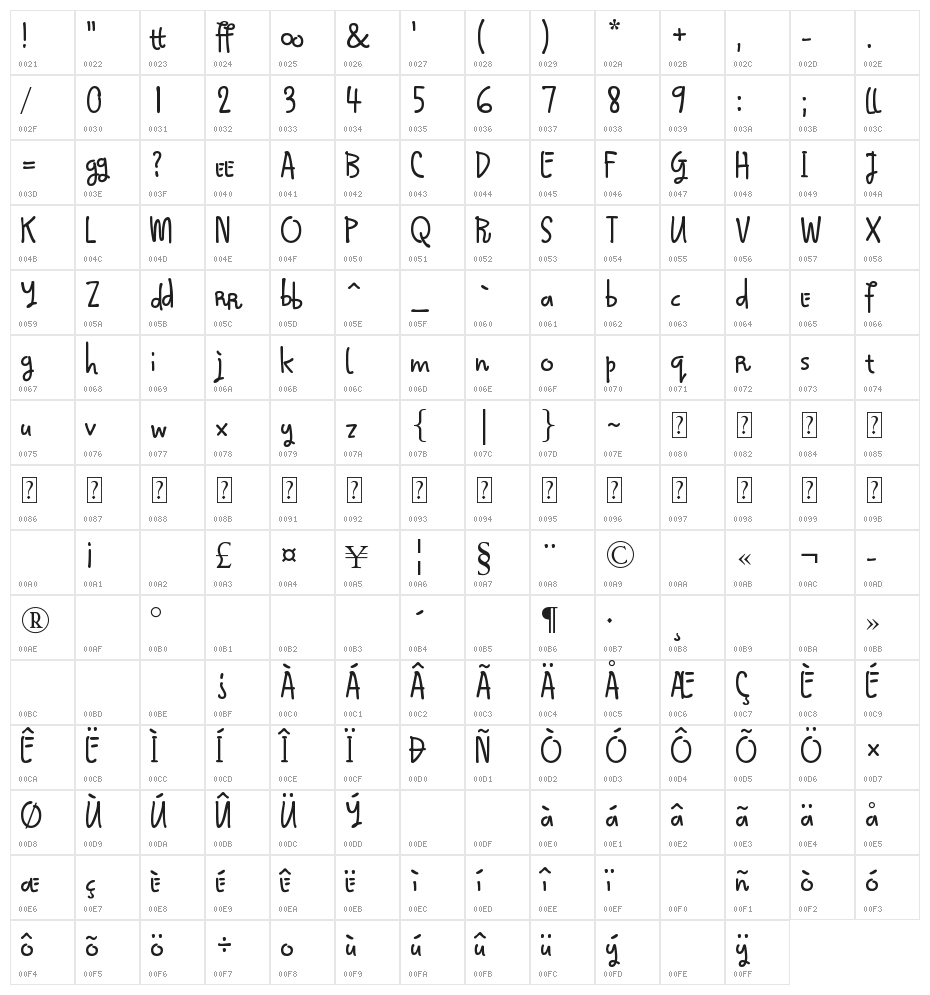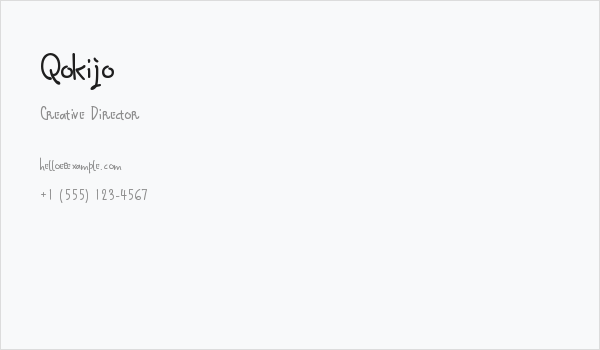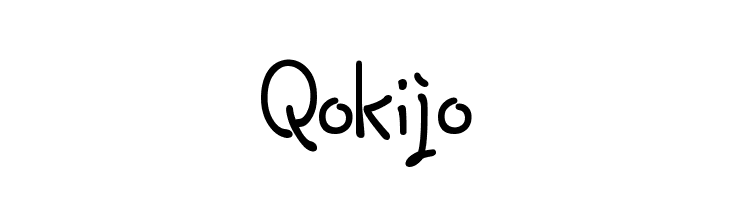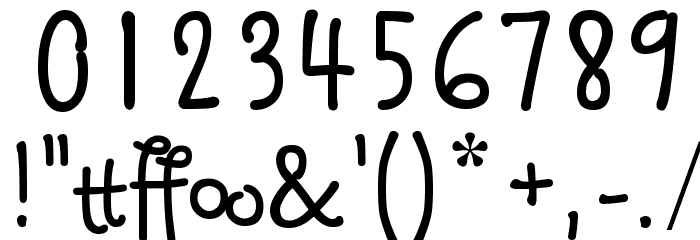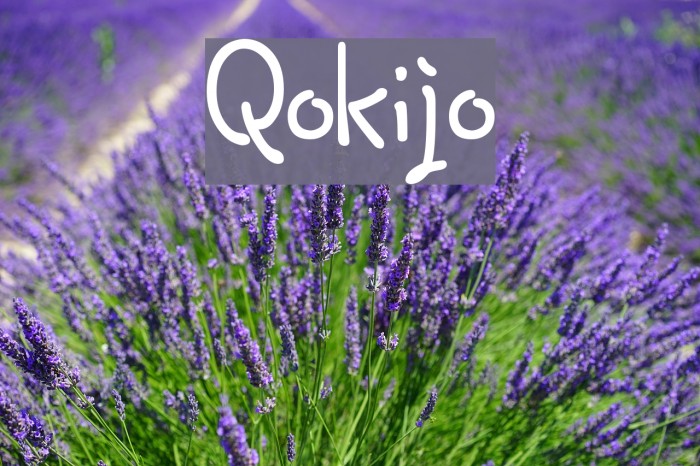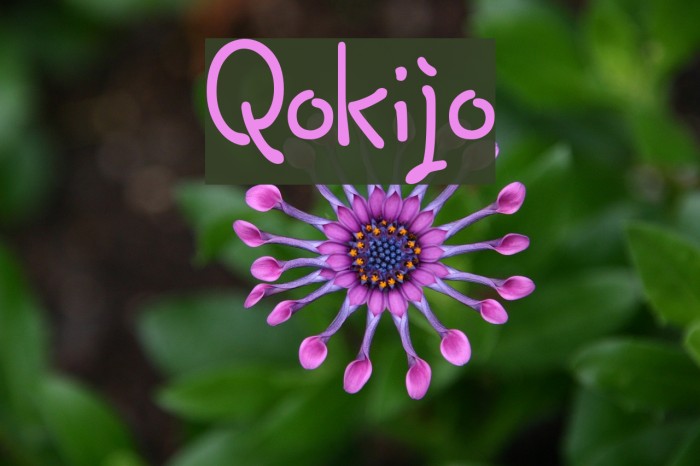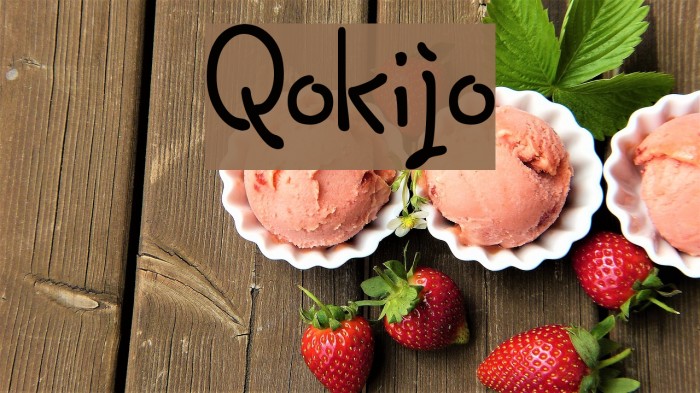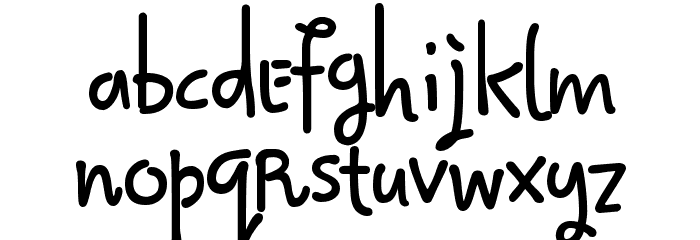
Qokijo Font
Qokijo Description
This playful and whimsical font features a handwritten style with a casual, friendly appearance. The characters are slightly irregular, adding a personal touch that mimics natural handwriting. The uppercase letters are tall and narrow, while the lowercase letters maintain a consistent flow with rounded edges. Numbers and special characters follow the same playful design, making the font versatile for various creative projects. The overall look is approachable and informal, suitable for designs that aim to convey warmth and personality.
| Proposed Projects | Ideal for greeting cards, children's books, playful branding, and social media graphics. |